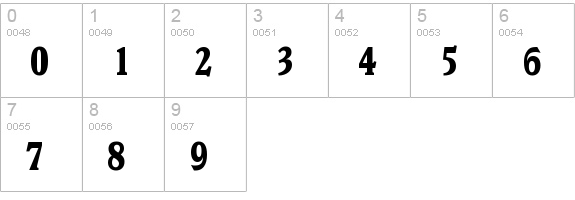
VeroneseExtraBoldCondensed Font Details
VeroneseExtraBoldCondensed font is a stunning and powerful typeface that exudes confidence and elegance. Designed with a condensed style, this font is perfect for making a bold statement in your designs. Its strong and prominent letterforms demand attention and create a lasting impression. Featuring thick, solid strokes, VeroneseExtraBoldCondensed font is ideal for headlines, titles, and other prominent text elements. Its condensed nature allows it to fit more text in a limited space without sacrificing legibility. Whether you're designing a poster, logo, or any other creative project, this font will effortlessly grab the viewer's attention and convey a sense of professionalism. One of the best features of VeroneseExtraBoldCondensed font is that it is freely available to download at FontsMarket.com. This means that you can easily access and use this incredible typeface in your projects without any cost. The versatility and quality of this font make it a valuable asset for designers and creatives looking to add a touch of sophistication to their work. With its bold and condensed design, VeroneseExtraBoldCondensed font showcases a perfect balance between modernity and classic elegance. Its clean and well-defined letterforms ensure excellent readability even at smaller sizes. This font is sure to make a lasting impression and elevate the visual impact of any design. Download VeroneseExtraBoldCondensed font for free at FontsMarket.com and unlock the potential to create stunning and impactful designs. Don't miss out on the opportunity to enhance your creative projects with this exceptional typeface.